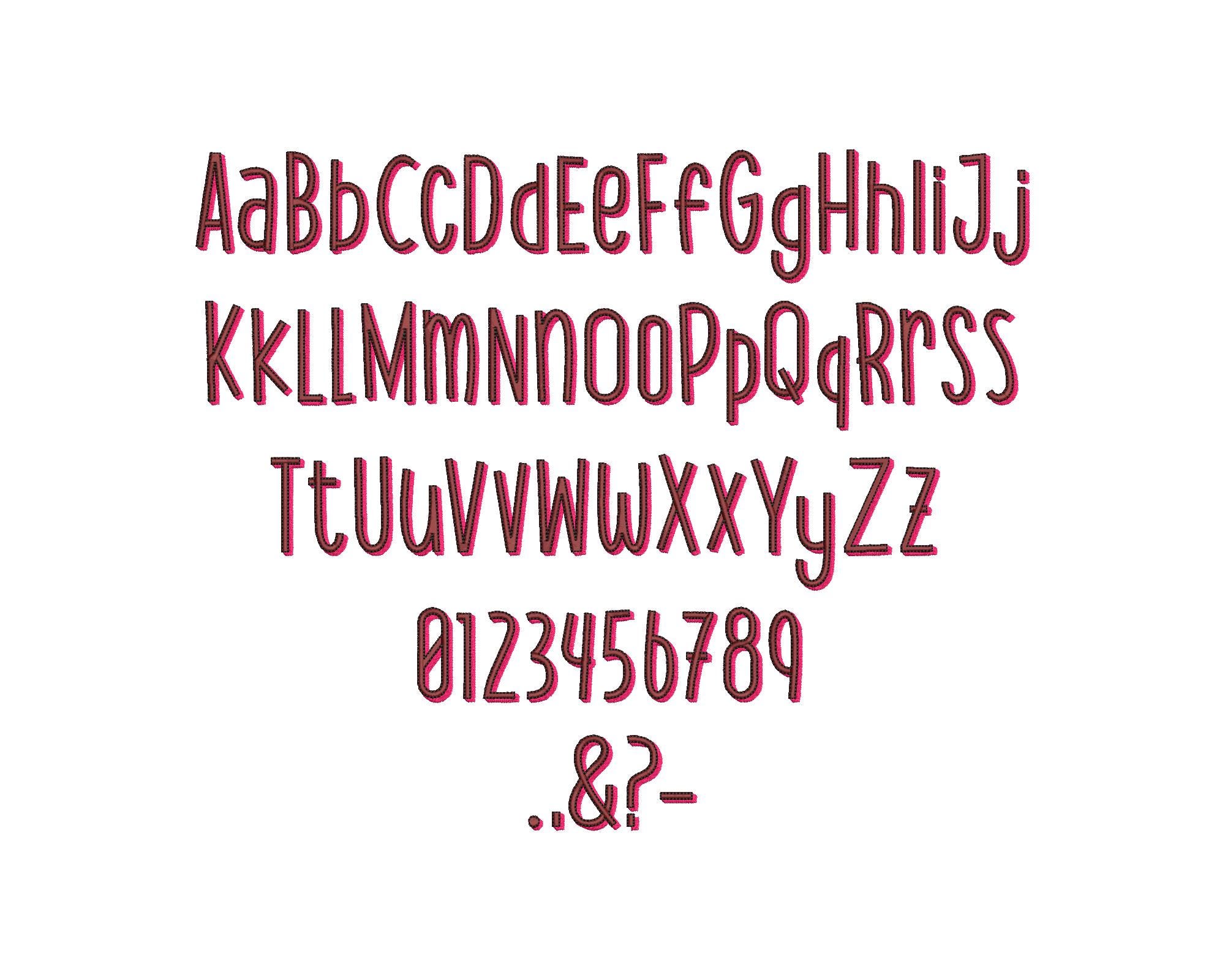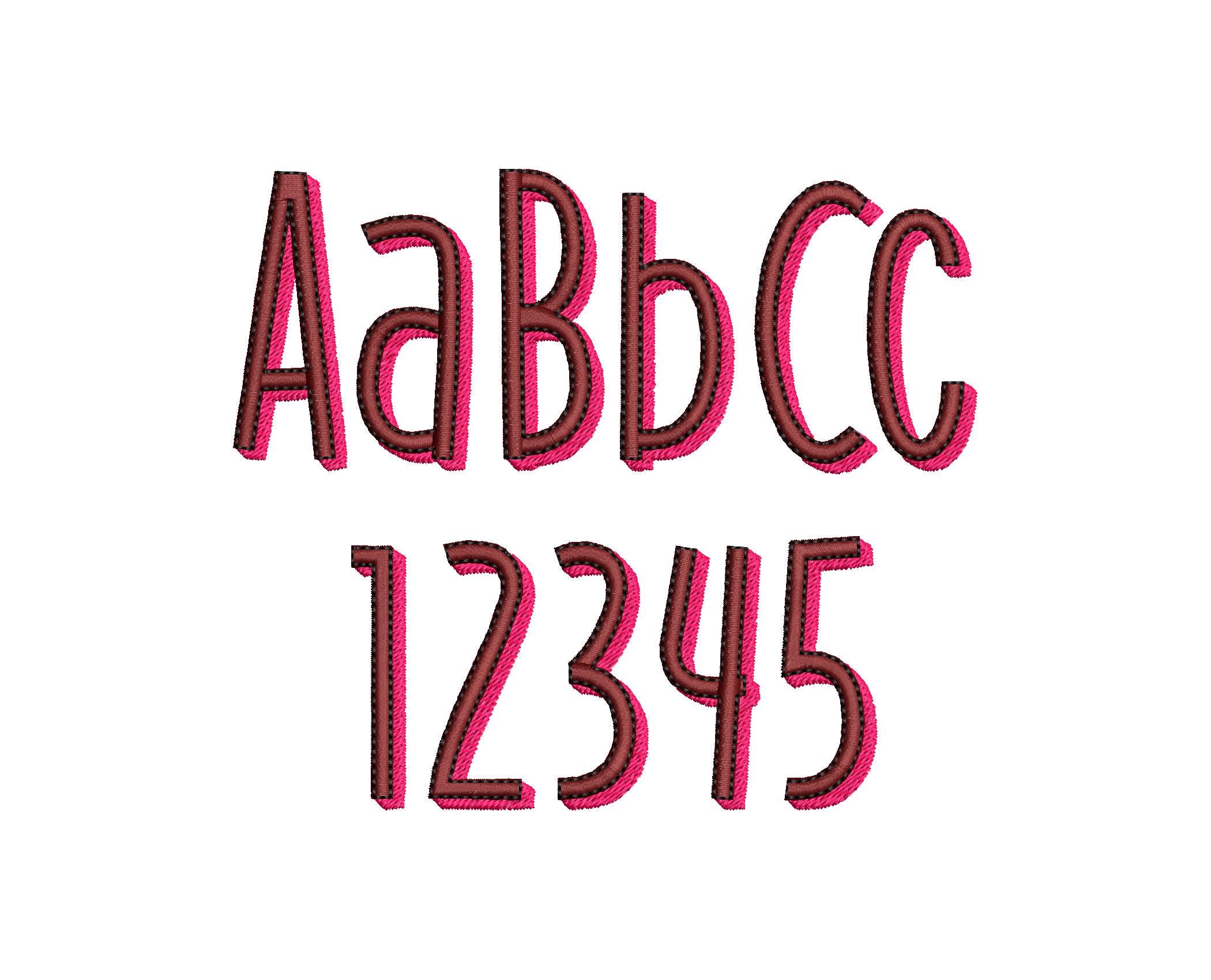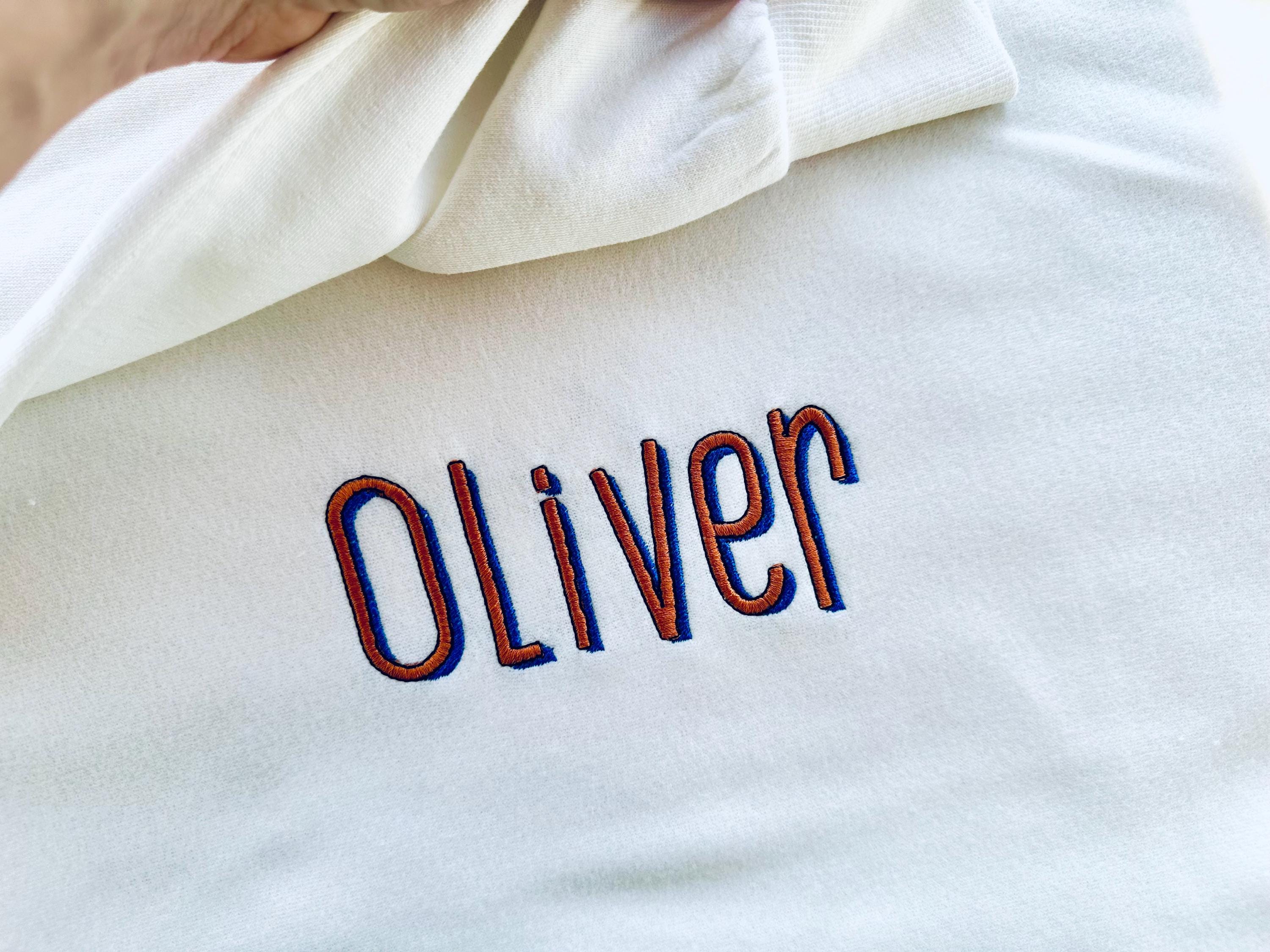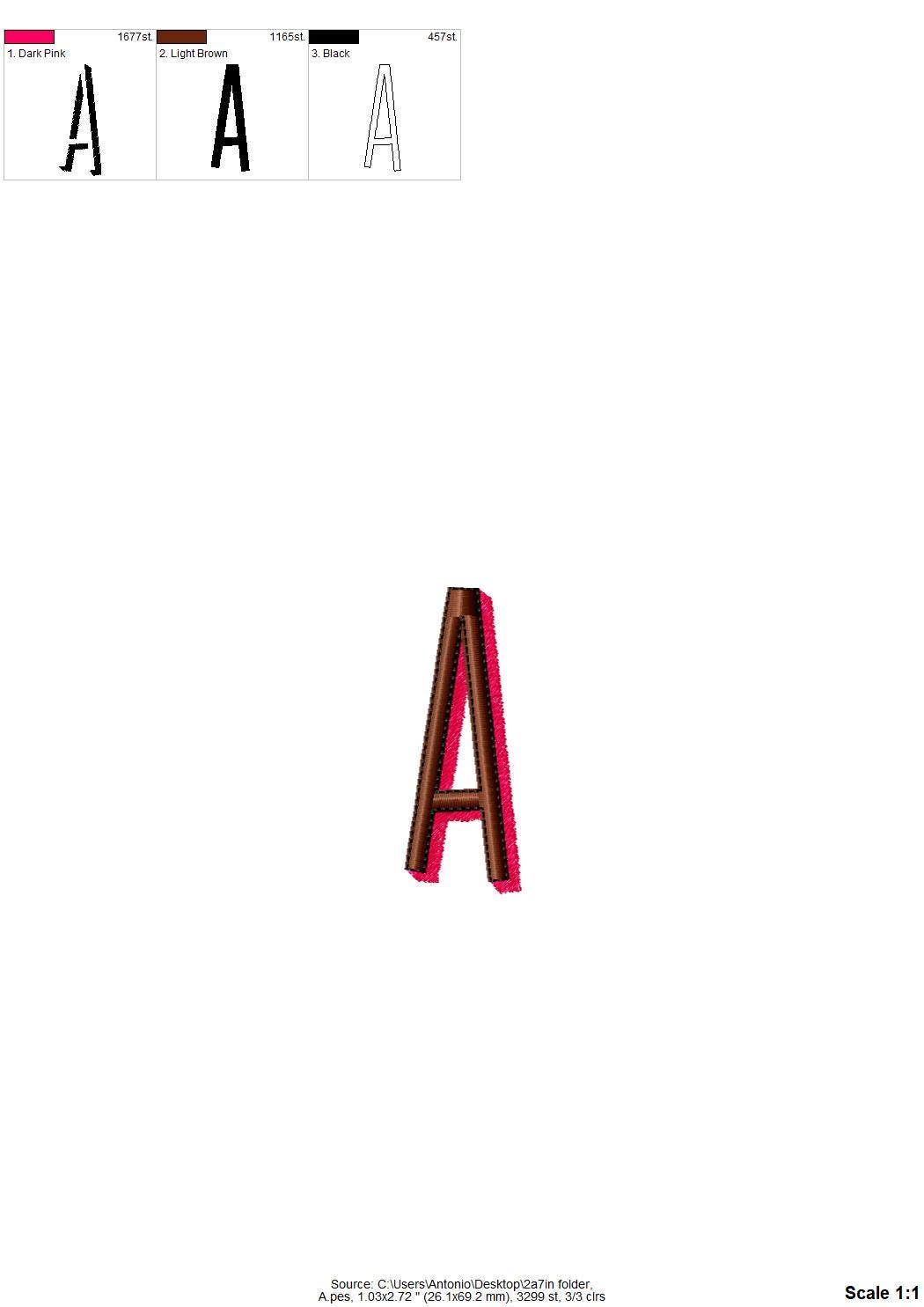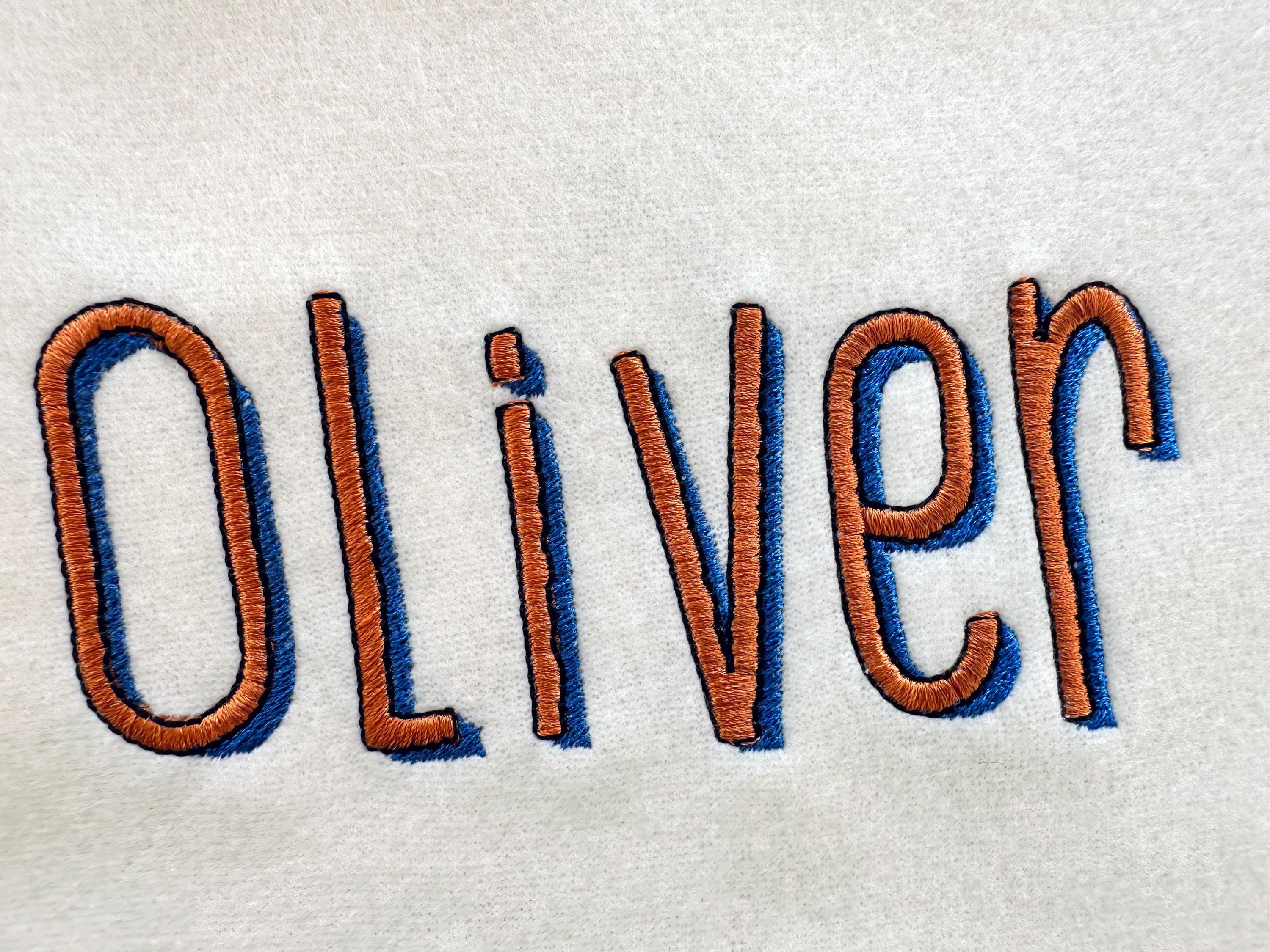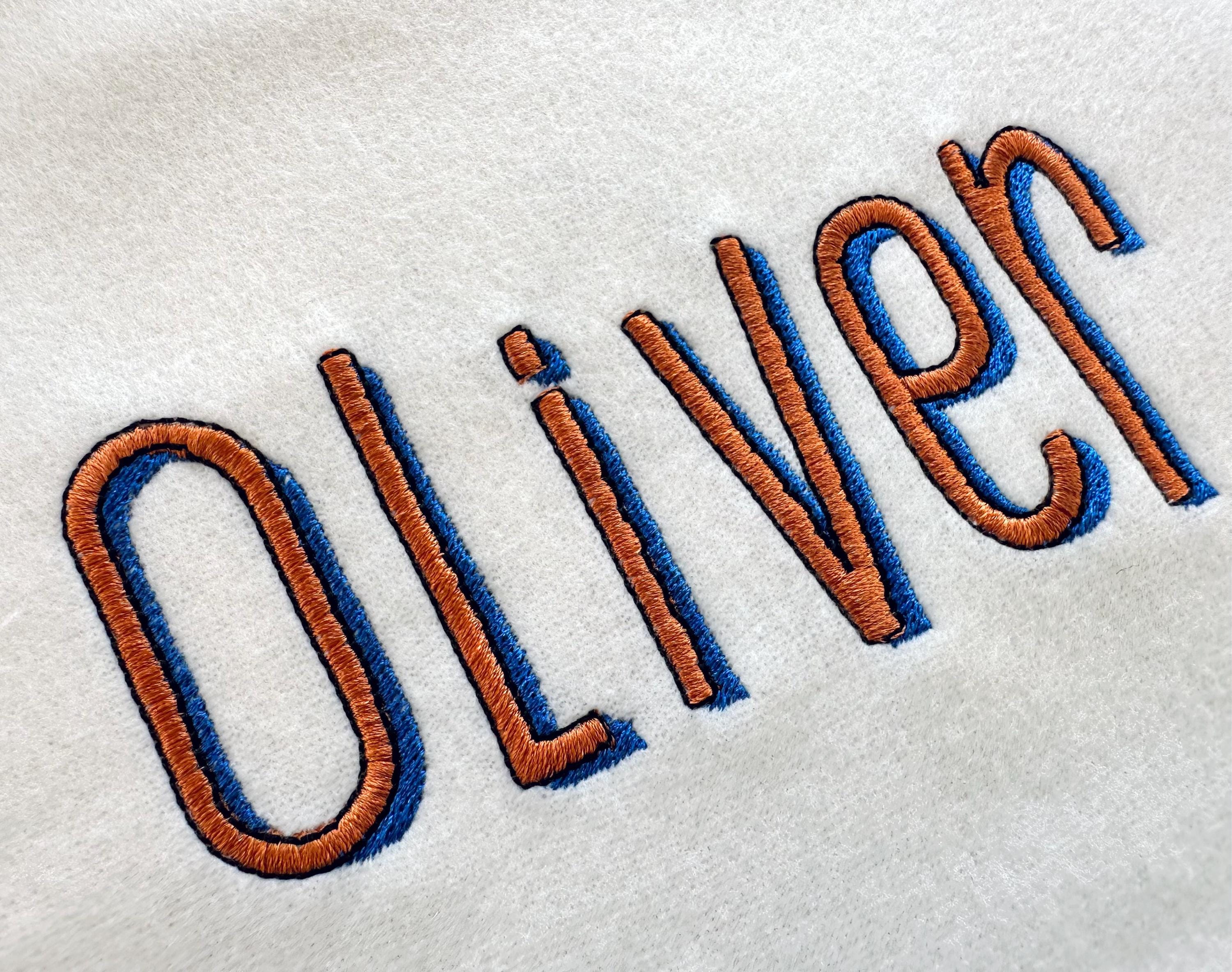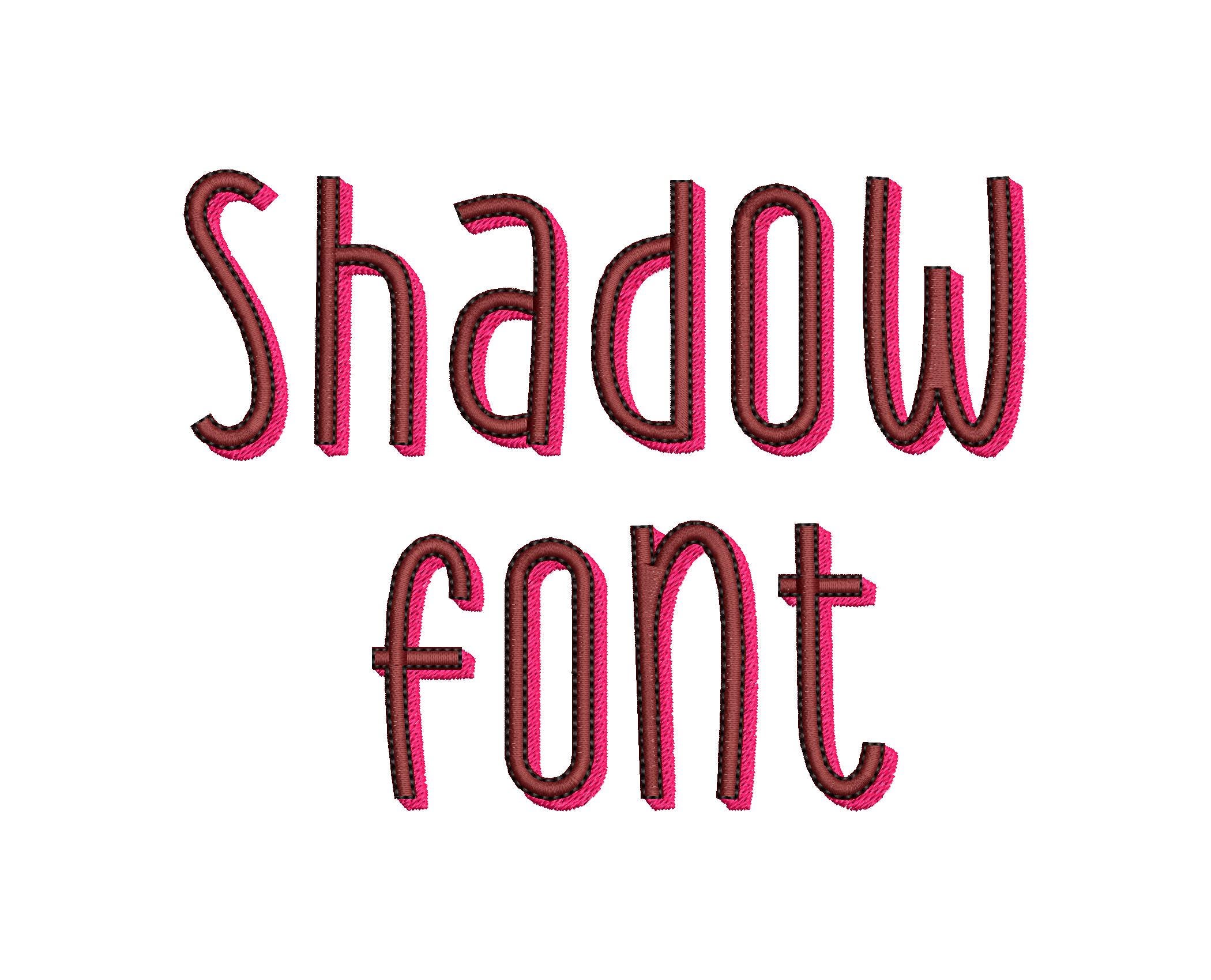
Shadow FONT Pamela machine embroidery designs shadowed alphabet Monogram embroidery font design bold Font many sizes 1.2 up to 4 inches, BX
This awesome three-color font features satin stitch letters with a fill stitch shadow and an outline.
Entire alphabet uppercase and lowercase letters Aa-Zz, numbers 0-9, and punctuation.